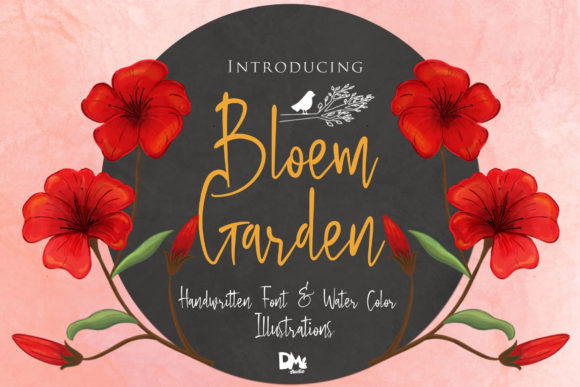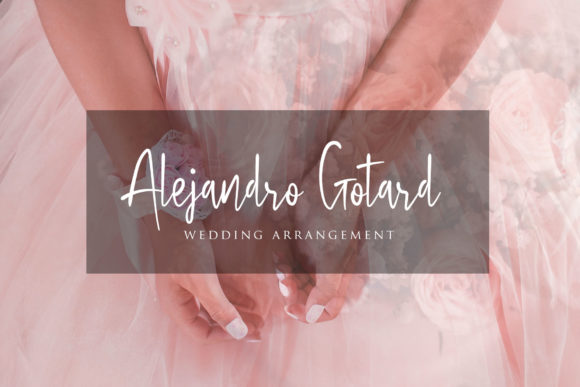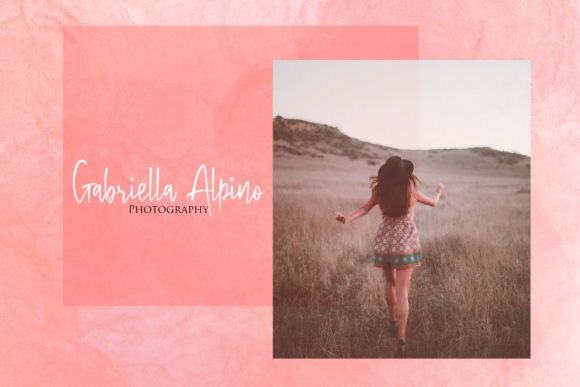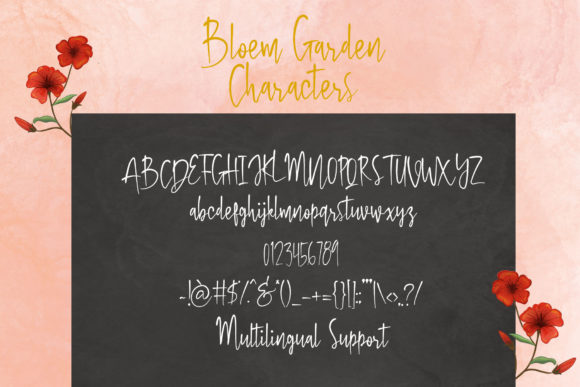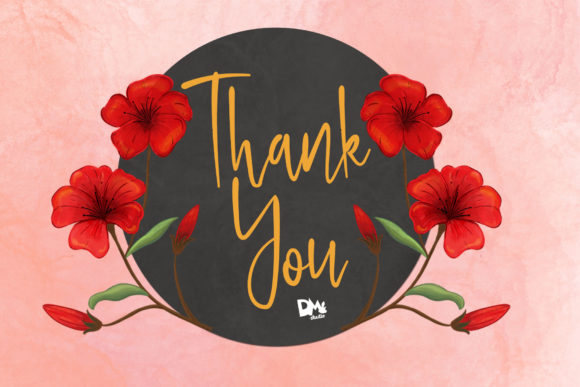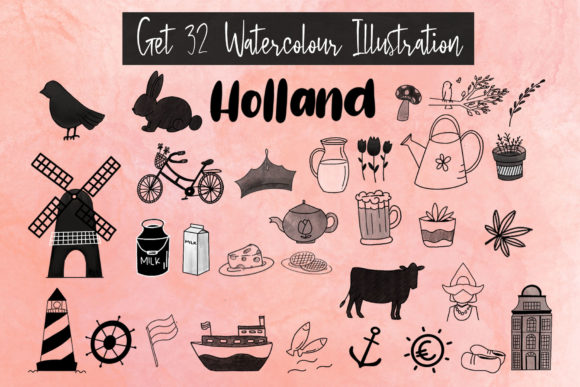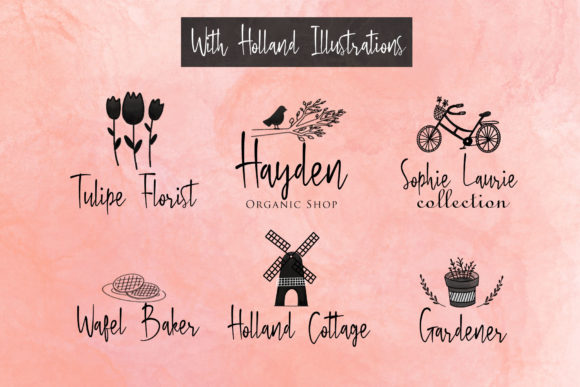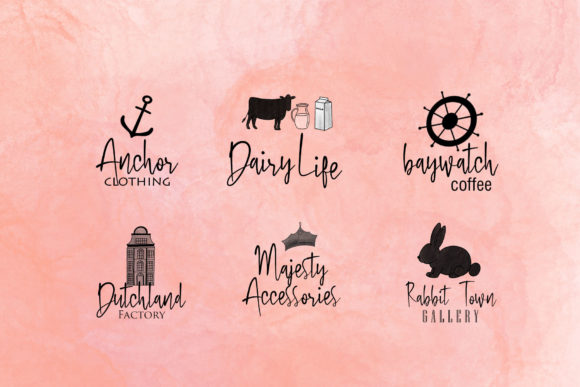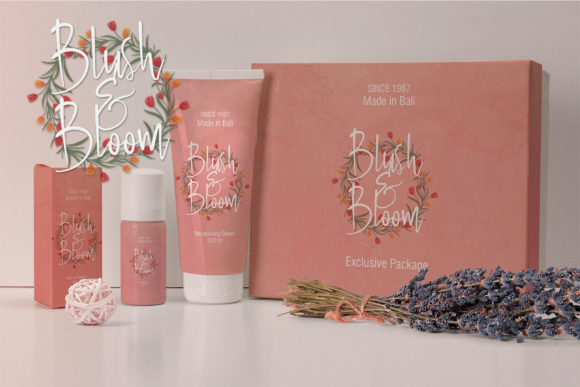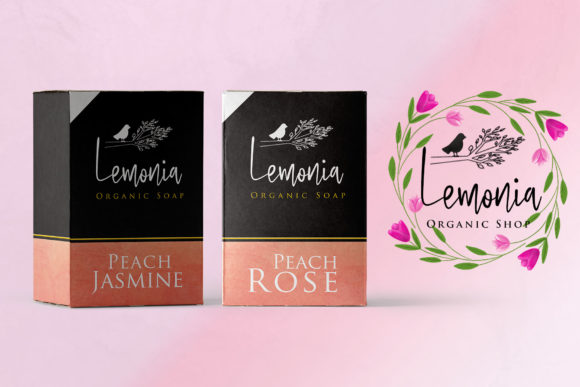
Bloem Garden Font
About Bloem Garden Font
Inspired by Dutch flowers, Bloem Garden is a casual, yet beautiful handwritten font. It’s extremely versatile, and will add a whimsical spark to any design project! Fall in love with its extra pack of flower illustrations!